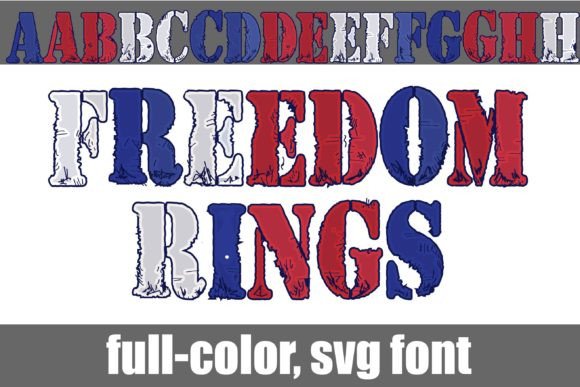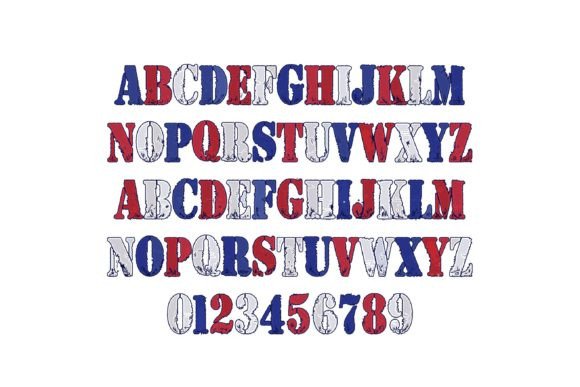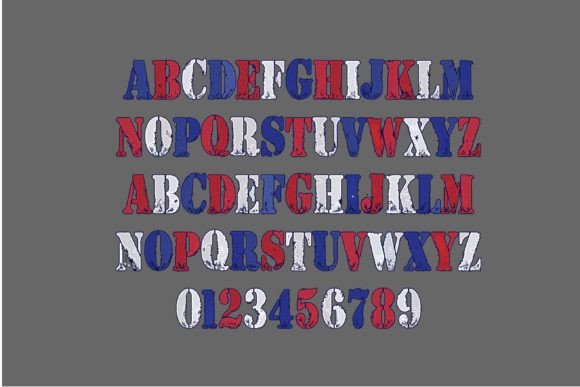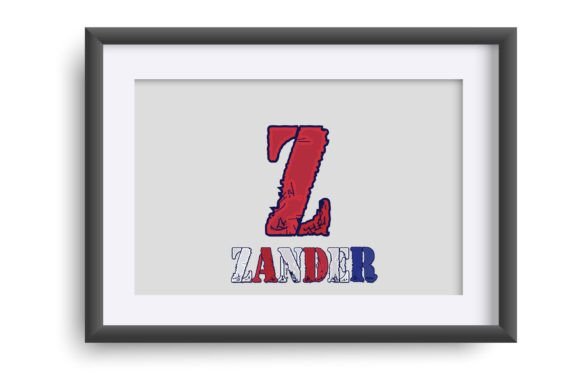
Freedom Rings Font
About the Freedom Rings Font
The Freedom Rings Font offers a perfect balance of form and function for your design needs. This full-color font features a grungy stencil style font in a patriotic color palette. There is an alt case w/ additional colors you can access through your system or Silhouette’s glyph map. This font works best for titles, displays, posters and more. Please note color fonts will show as black in non compatible programs. This font type is compatible with Silhouette Studio.